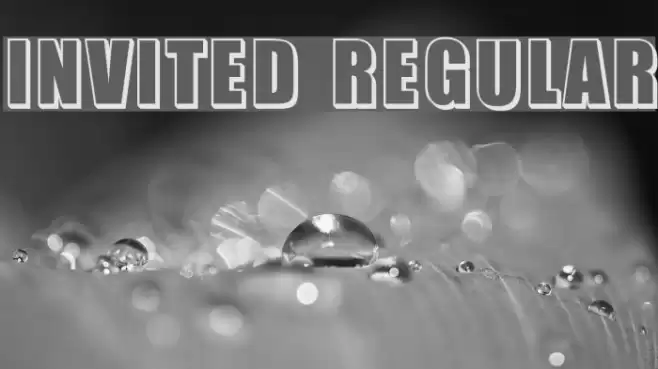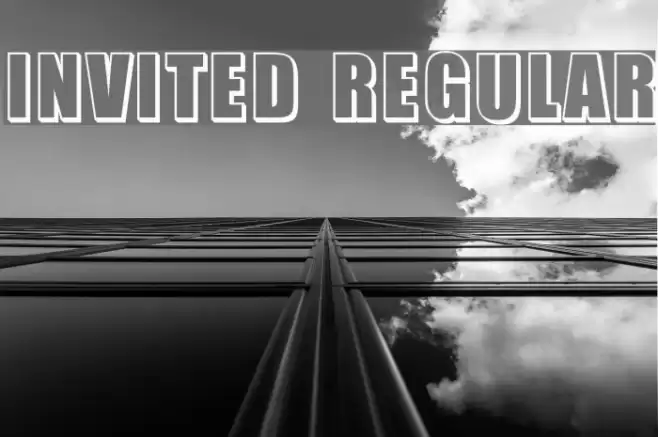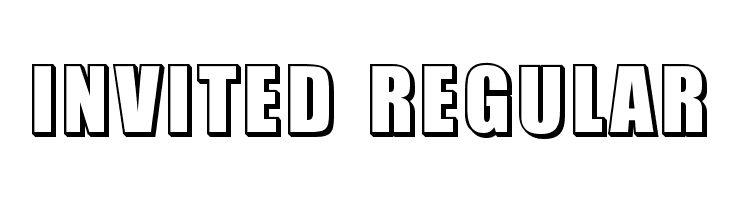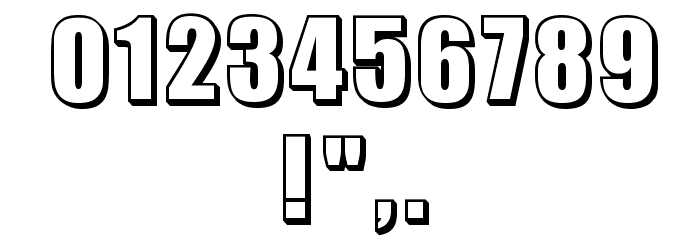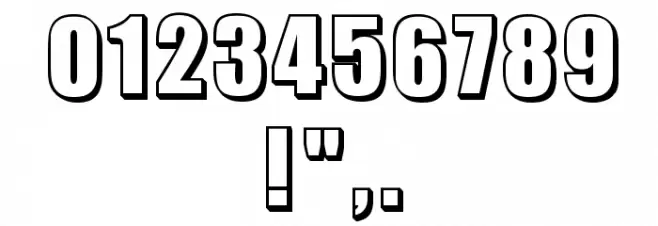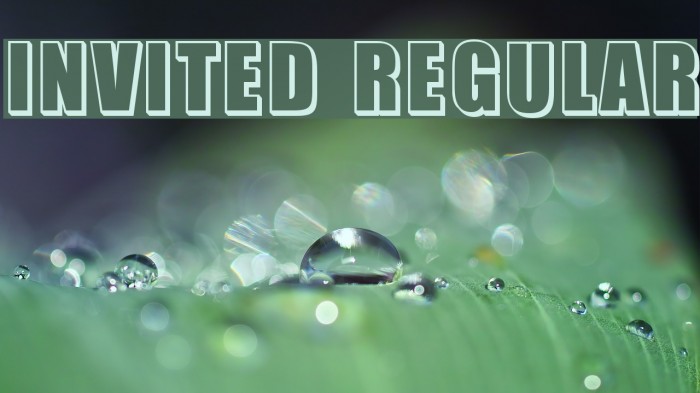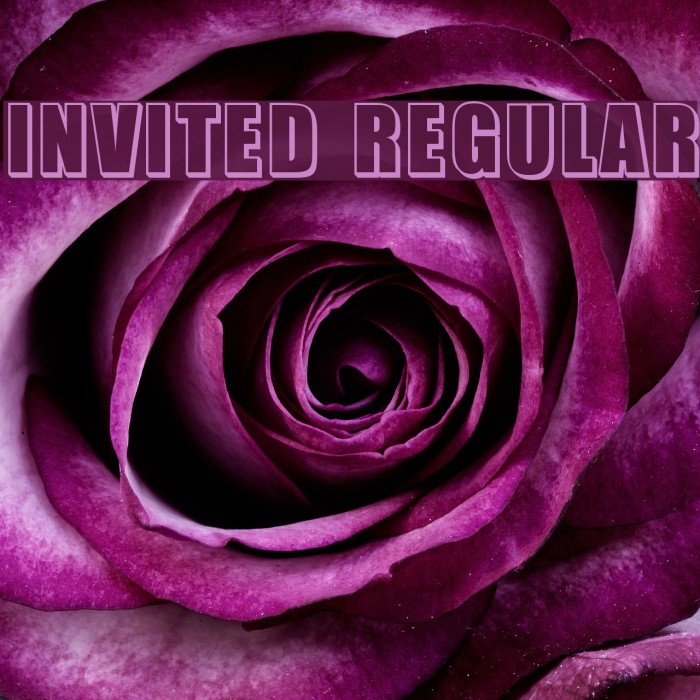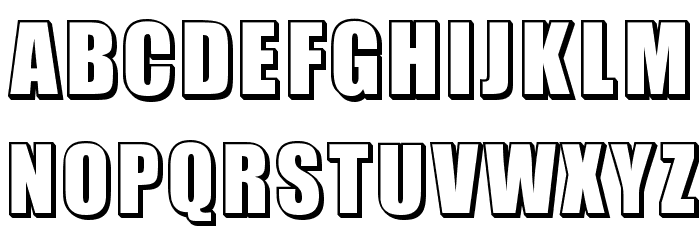
Invited Regular Font
Invited Regular Description
This font features bold, uppercase letters with a strong, impactful presence. The characters are outlined, giving them a distinct, eye-catching appearance. The design is clean and modern, with uniform stroke widths that create a sense of balance and stability. The numerals and special characters maintain the same bold style, ensuring consistency across all text elements. This font is ideal for making statements and drawing attention, whether in print or digital formats.
A bold, outlined font with a modern and impactful style from Uncategorized fonts.
- Proposed Projects: Ideal for posters, headlines, advertisements, and branding materials where a strong visual impact is desired.